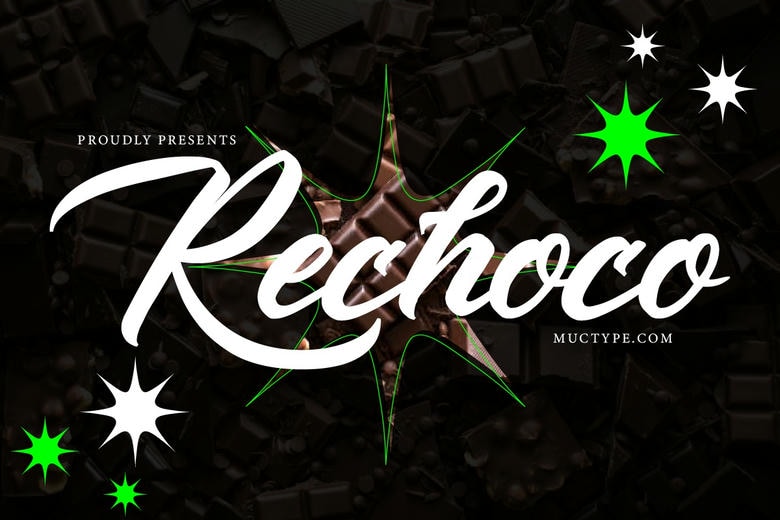
Rechoco Font
Rechoco is an aggressive brush script font that is created to add power, fashion and dramatic flair to whatever you create. It is smooth and has a robust handwritten touch which makes it ideal with logos, branding, poster, quotes, streetwear and modern display designs.
Rechoco will be suitable in headlines and short text, where there is a need to make a difference, because of its bold and energetic appearance.
Rechoco Brush Script Font